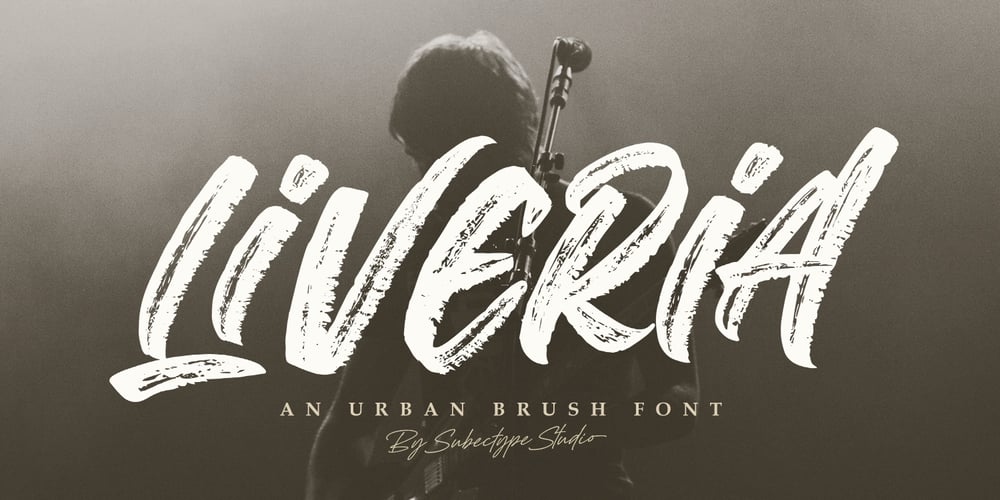
Liveria Font Family was designed by Rangga Subekti and published by Subectype. Liveria contains 2 styles and family package options. Liveria is an urban font with natural hand-painted style.Suitable for any design needs, branding, urban design, modern advertising design,Book/Cover Title, special events, adventures, headlines, any brush lettering needs and more.Liveria comes with upper and lowercase Standard Characters, Punctuation, Numerals. And some glyphs variation of the OpenType features such as Standard Ligatures and Stylistic Set. Includes a range of multilingual supportWHATS INCLUDED :Multilingual SupportLigatures and alternates fontIf you have any questions please don’t hesitate to drop me a message :)Thank You, Subectype Studio